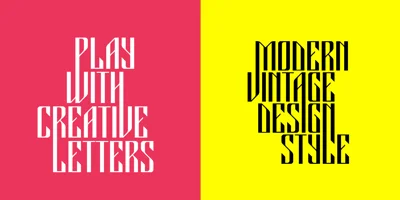
Bagorly Font
Bagorly Font is perfect for outdoor adventure branding, rustic lodge signage, craft brewery marketing, heritage camping gear, artisanal workshop logos, mountain resort promotions, and rugged lifestyle publications.
What makes Bagorly Font exciting is its robust outdoor spirit and handcrafted authenticity, featuring sturdy letterforms that capture the essence of wilderness adventure while delivering exceptional durability and authentic outdoor appeal.
The Bagorly Font family includes Light, Regular, Medium, Bold, and Heavy weights, plus weathered texture variants and adventure-inspired alternates that enhance the font's rugged character and outdoor possibilities.
Bagorly Font embodies the authentic spirit of outdoor adventure and handcrafted wilderness living through exceptional typography design. This robust typeface captures the rugged beauty of natural landscapes and the satisfaction of outdoor exploration, creating a genuine visual language that speaks to adventurers and outdoor enthusiasts who value authentic experiences, quality craftsmanship, and the freedom of wilderness living. The font's sturdy character and outdoor appearance make it ideal for adventure brands, outdoor retailers, and wilderness companies that want to communicate reliability, authenticity, and the enduring appeal of outdoor lifestyle.
Outdoor companies and adventure brands consistently select Bagorly Font for projects that require authentic wilderness credibility and rugged visual appeal. The typeface's robust construction and adventure personality make it exceptionally effective for camping equipment manufacturers, outdoor gear retailers, and adventure tourism companies where durability and outdoor authenticity are paramount. Each character has been crafted with wilderness precision to ensure maximum impact across all outdoor applications and adventure environments.
The adventure advantages of Bagorly Font extend beyond its outdoor appeal to include practical functionality for diverse wilderness applications. The font maintains excellent readability in outdoor conditions while delivering the distinctive character that creates memorable adventure experiences and connects with audiences seeking genuine outdoor quality. Its comprehensive character set includes outdoor symbols and adventure elements that make it particularly suitable for wilderness documentation and outdoor communication.
Adventure gear companies, outdoor retailers, and wilderness organizations frequently choose Bagorly Font because of its ability to instantly convey outdoor expertise and wilderness authenticity. The typeface's rugged aesthetic helps establish credibility in competitive outdoor markets while appealing to customers who value quality equipment, authentic adventure experiences, and the reliability that comes from proven outdoor performance and wilderness expertise.